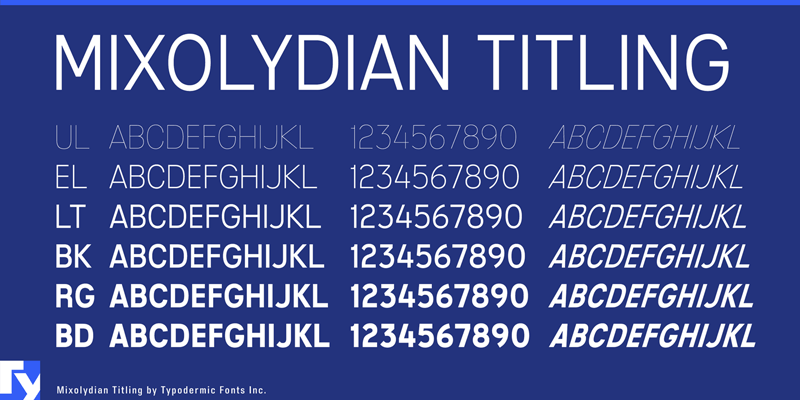
Mixolydian is a technical sans-serif typeface. While technical fonts like DIN have a European flavor, Mixolydian was created with a distinct American style. Some of the visual aspect was acquired from the U.S. Federal Highway Administration Standard alphabet (Highway Gothic) and from architectural drafting templates. The rhythm of each letter width is deliberately off-kilter to give it a utilitarian, scientific feel. The Mixolydian family includes six weights as well as six strongly inclined obliques. If you need lowercase for your project, check out the regular Mixolydian family. http://typodermicfonts.com/mixolydian-font-family These fonts include a license that allows free commercial use: sometimes referred to as a desktop license. This allows you to install the fonts on a computer and use them to create posters, web graphics, game graphics, t-shirts, videos, signs, logos and more. Read the license agreement for details. If you'd like to embed these fonts in an app, ebook, on the web or anything that's not covered by the desktop license agreement, visit the link below. You'll find distributors who offer different types of licenses or you can contact me for help. http://typodermicfonts.com/mixolydian-titling/ |